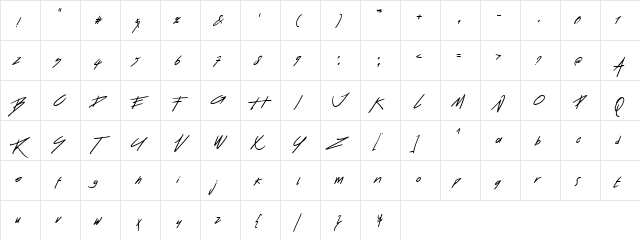
Retquizer Regular
| Designer | Saidi Alfianor @ Sentype Foundry |
Retquizer is a composed and adaptable typeface that performs quietly and consistently across a wide range of design contexts.